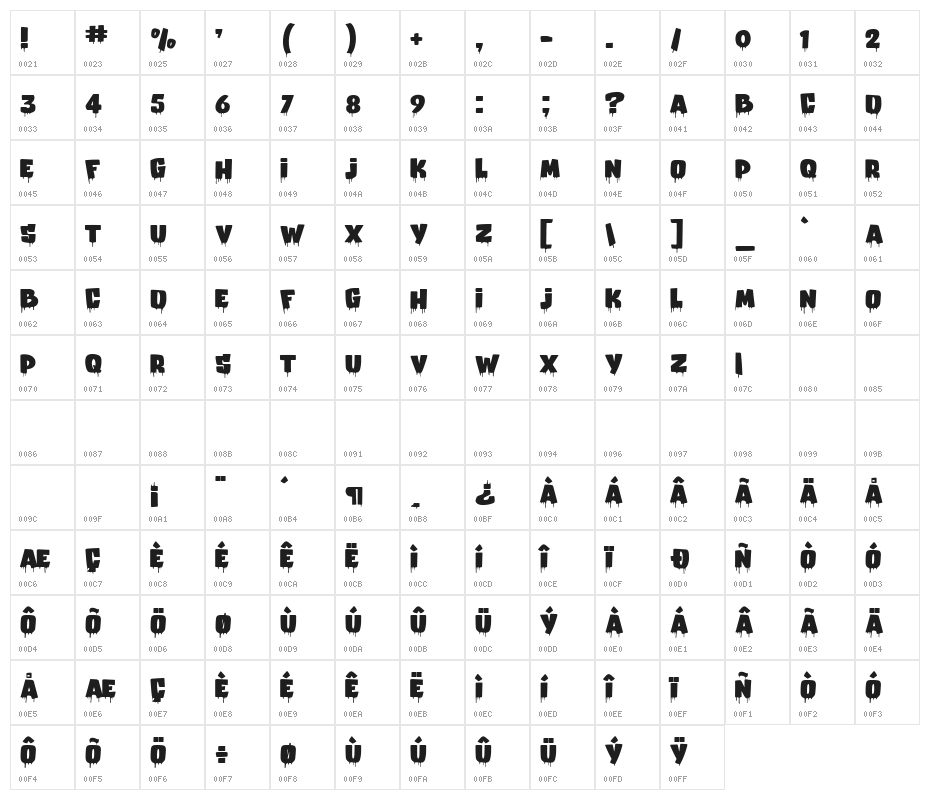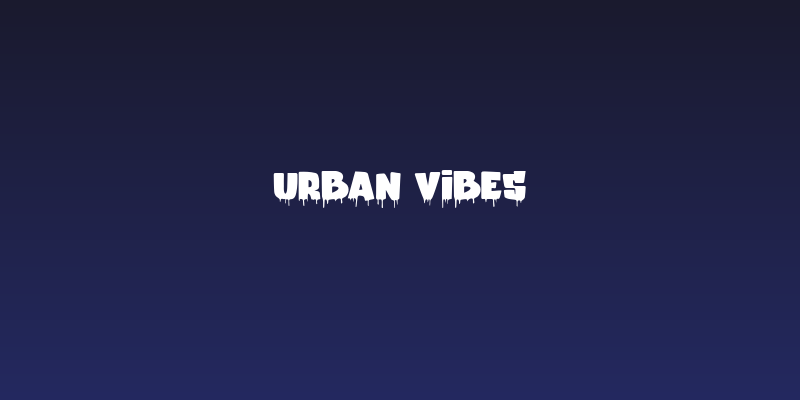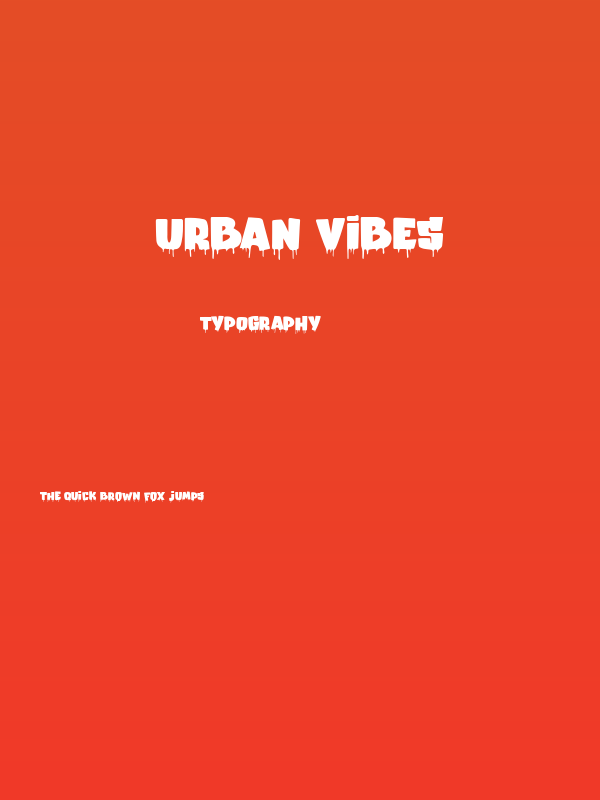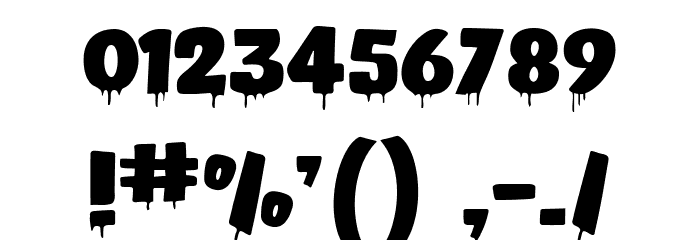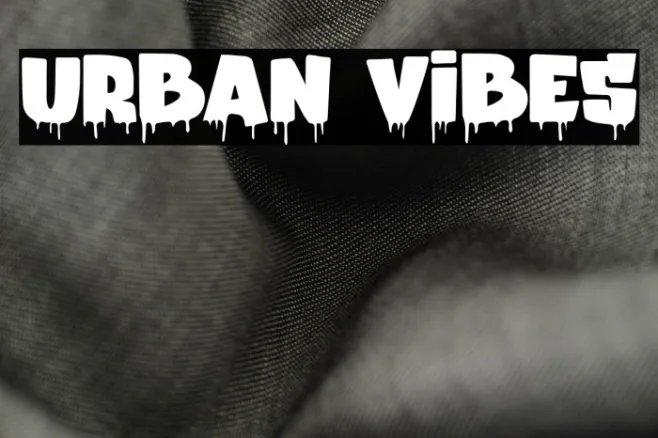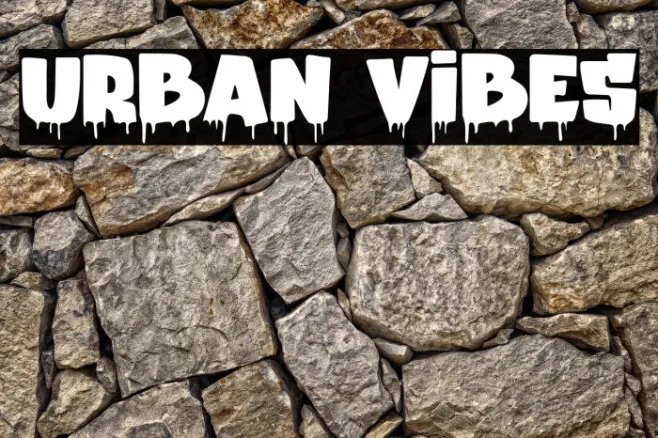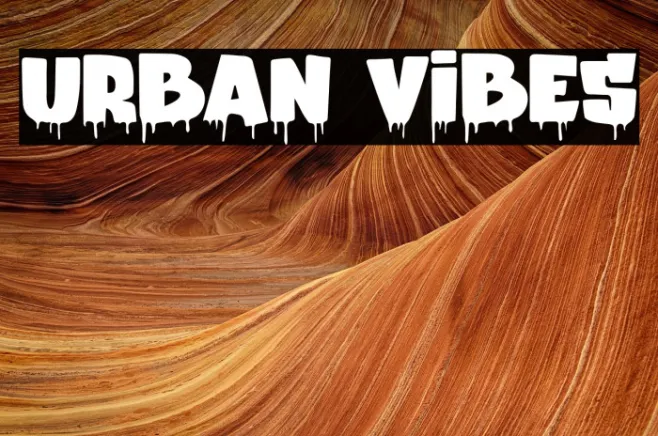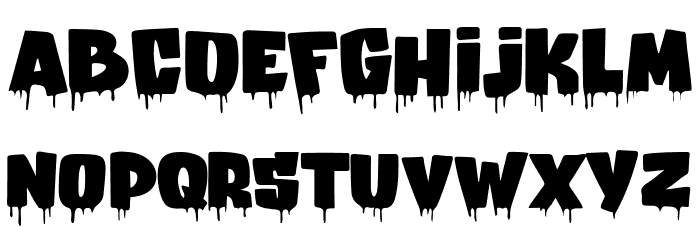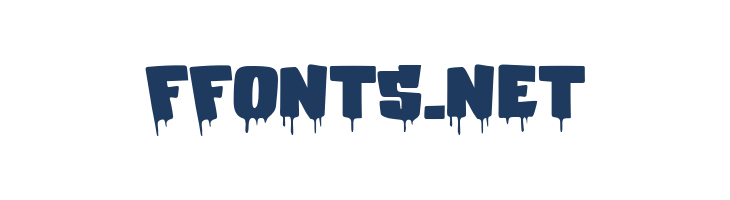
URBAN VIBES Font
| Gesamtstil | Urban, Edgy, Graffiti |
| Vorgeschlagene Projekte | Perfect for street art projects, urban-themed posters, edgy branding, and music album covers. |